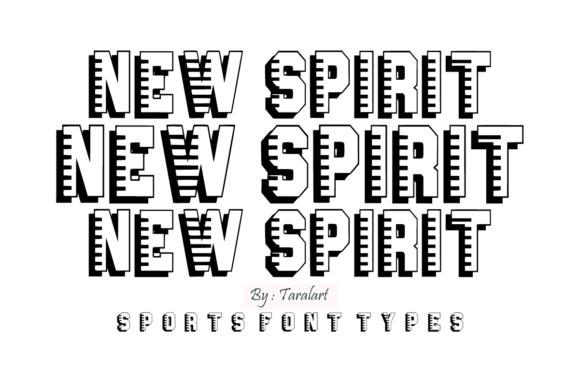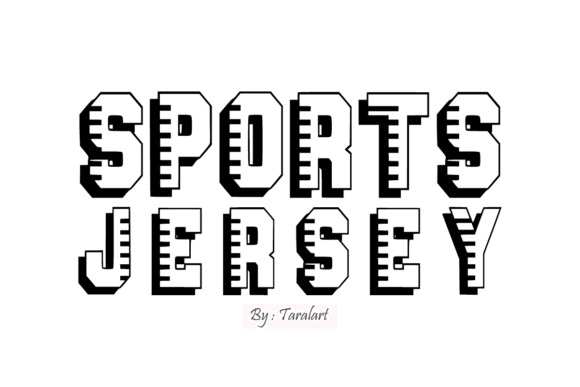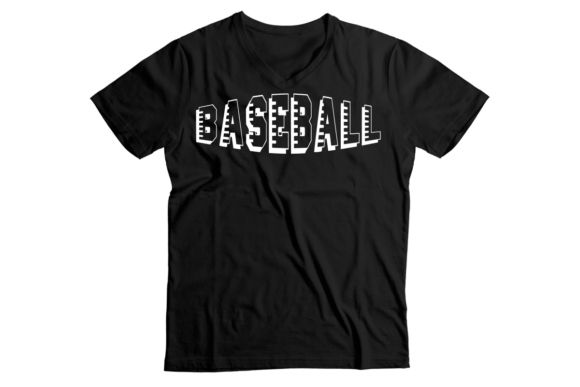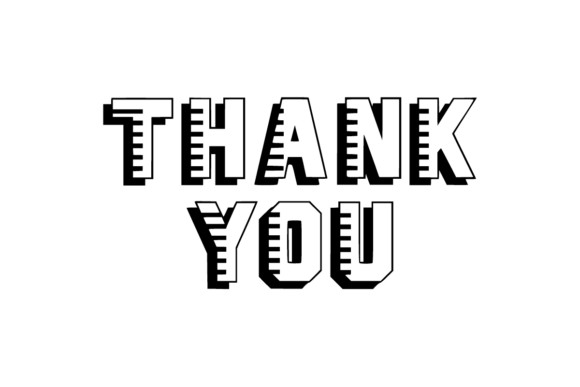
Introducing Baseball Outline Font: The Perfect Choice for Sports-Themed Designs
Are you a designer or crafter looking for a font that can add a touch of classic sports style to your projects? Look no further than the Baseball Outline Font. This versatile font is perfect for a wide range of applications, from sports-themed craft designs to sublimated t-shirts, mugs, tote bags, animations, and comic titles.
What is Baseball Outline Font?
Baseball Outline Font is a classic outline sports font that consists of only uppercase letters. Each character is strong and bold, making it easy to recognize and apply to your designs. The font’s outline style gives it a unique and eye-catching look that’s sure to stand out.
Key Features of Baseball Outline Font
- Classic sports style: The Baseball Outline Font has a timeless look that’s reminiscent of traditional sports typography.
- Strong and bold characters: Each character is carefully designed to be easy to read and recognize, even at small sizes.
- Uppercase letters only: The font’s uppercase-only design makes it perfect for titles, headings, and other applications where you want to make a statement.
- Outline style: The font’s outline style gives it a unique and eye-catching look that’s perfect for designs that need to stand out.
Uses for Baseball Outline Font
The Baseball Outline Font is incredibly versatile, and can be used for a wide range of applications, including:
- Sports-themed craft designs: Add a touch of classic sports style to your craft projects, such as iron-on designs, stickers, and more.
- Sublimated t-shirts: Create eye-catching sublimated t-shirts with the Baseball Outline Font.
- Mugs and water bottles: Add a fun and sporty touch to your mug and water bottle designs.
- Tote bags and other fabric items: Use the Baseball Outline Font to create custom tote bags, scarves, and other fabric items.
- Animations and comics: Add a touch of classic sports style to your animations and comic titles.
Why Choose Baseball Outline Font?
There are many fonts to choose from, but the Baseball Outline Font stands out for several reasons:
- Easy to read: The font’s strong and bold characters make it easy to read, even at small sizes.
- Highly versatile: The Baseball Outline Font can be used for a wide range of applications, from sports-themed craft designs to animations and comic titles.
- Unique and eye-catching: The font’s outline style gives it a unique and eye-catching look that’s sure to stand out.
Tips for Using Baseball Outline Font
Here are a few tips for getting the most out of the Baseball Outline Font:
- Use it for titles and headings: The Baseball Outline Font is perfect for titles and headings, where you want to make a statement.
- Experiment with different colors: The font’s outline style looks great in a variety of colors, so don’t be afraid to experiment.
- Combine it with other fonts: The Baseball Outline Font pairs well with a variety of other fonts, so feel free to get creative.